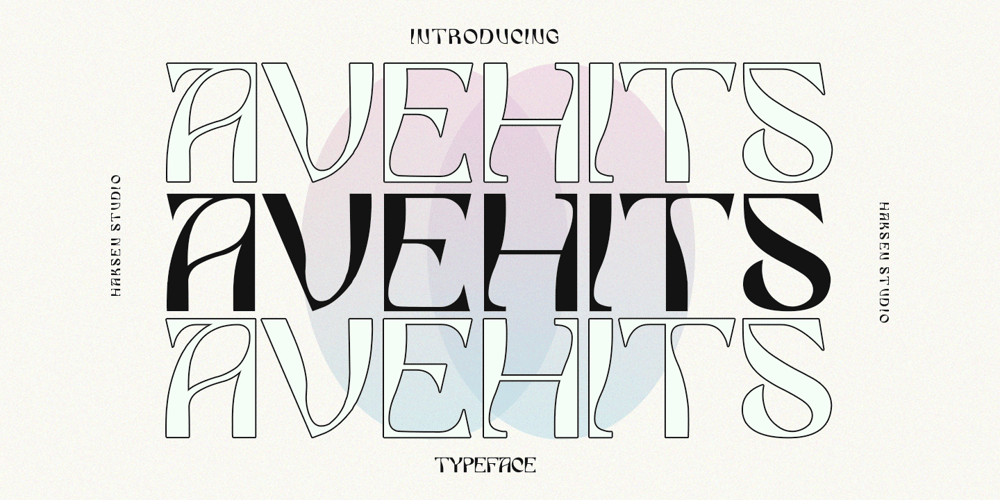
Avehits Font Family was designed by Sarwo Edhi Prayitno and published by Haksen. Avehits contains 2 styles and family package options. AVEHITS are the family of modern display style with Uppercase and Lowercase feel nice balanced and looks incredible. Honestly it works perfectly for headlines, logos, posters, packaging, T-shirts and much more.Recommended to use in Adobe Illustrator or Adobe Photoshop with opentype feature.If you have questions, just send me a message and I’m glad to help.Have a great day,Haksen